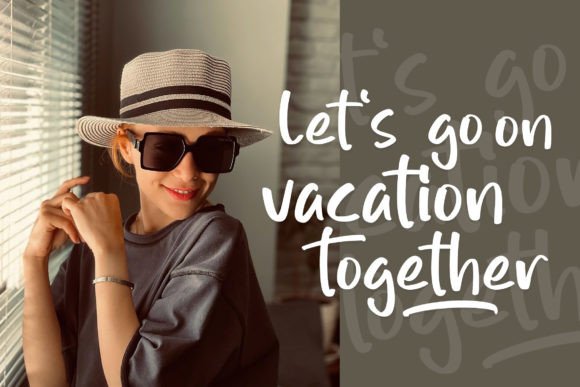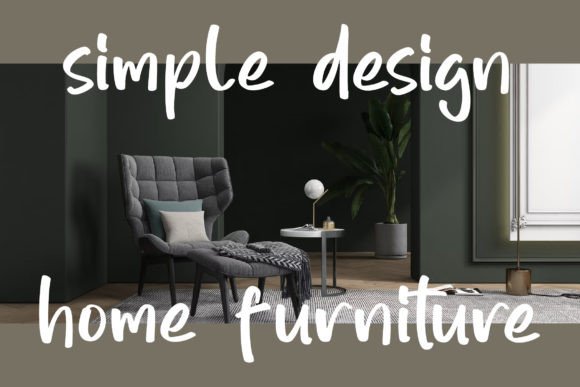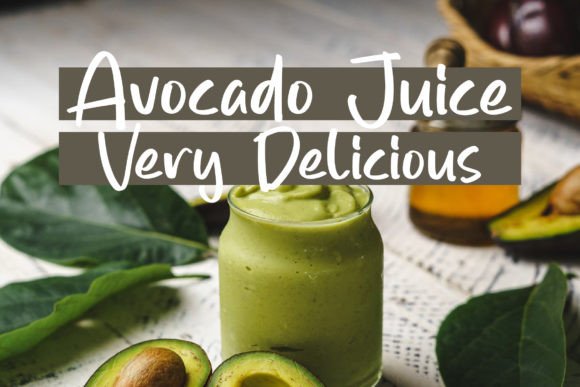
Introduction to Roltand Font
Roltand is a playful and stylish font with a youthful spirit.
Roltand is a playful and stylish font with a youthful spirit. Is suitable for both professional-looking projects such as branding designs, labels, websites, and business cards as well as casual design
Key Features of Roltand Font